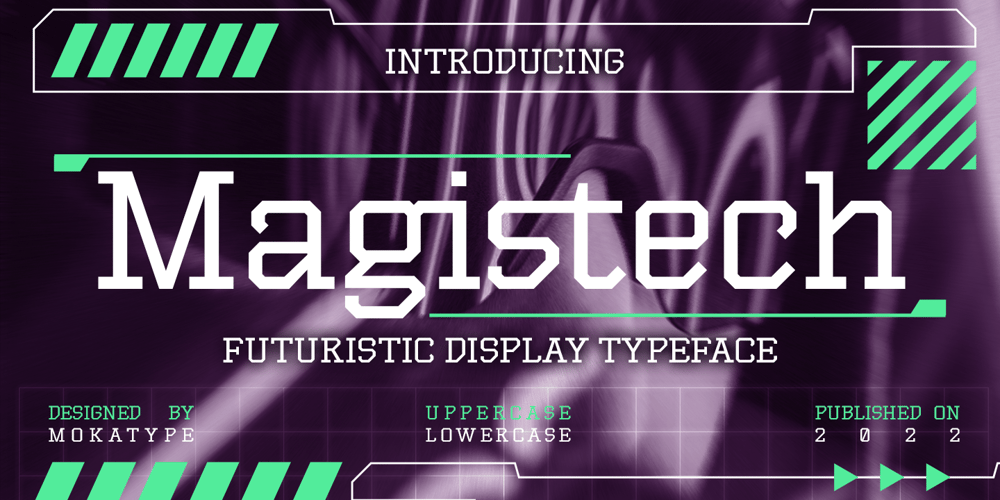
Magistech Font Family was designed by Abdul Malik Wisnu, Rivo Dwi Adriansyah and published by Mokatype Studio. Magistech contains 1 styles and family package options. Magistech is a display font inspired by technology and future design. Designed with modern sensibility build based on slab serif with square letterform, consist in any character either uppercase or lowercase. This font is fit for any design like headline, video, or social media, particularly for future or modern nuances design.What’s you get : Standard glyphs Ligatures (Opentype features) Web Font International Accent Works on PC & Mac Simple installations Accessible in Adobe Illustrator, Adobe Photoshop, Adobe InDesign, and even work on Microsoft Word. PUA Encoded Characters – Fully accessible without additional design software. Fonts include multilingual supportImage used: All photographs/pictures/vectors used in the preview are not included, they are intended for illustration only. Thank You